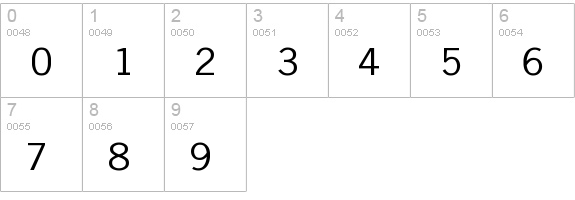
NewsGothicExt-N Font Details
NewsGothicExt-N is a versatile and modern font that is perfect for a wide range of design projects. Its clean lines and sharp edges give it a sleek and professional look, making it suitable for both digital and print applications. This font is ideal for headlines, titles, and any other text that needs to make a bold statement. What sets NewsGothicExt-N apart is that it is available for free download at FontsMarket.com. This means that you can easily access this high-quality font without any cost, making it a great choice for designers on a budget or anyone looking to add a touch of sophistication to their projects. With its timeless appeal and wide range of uses, NewsGothicExt-N is sure to become a staple in your font collection. Download it today and see the difference it can make in your designs.